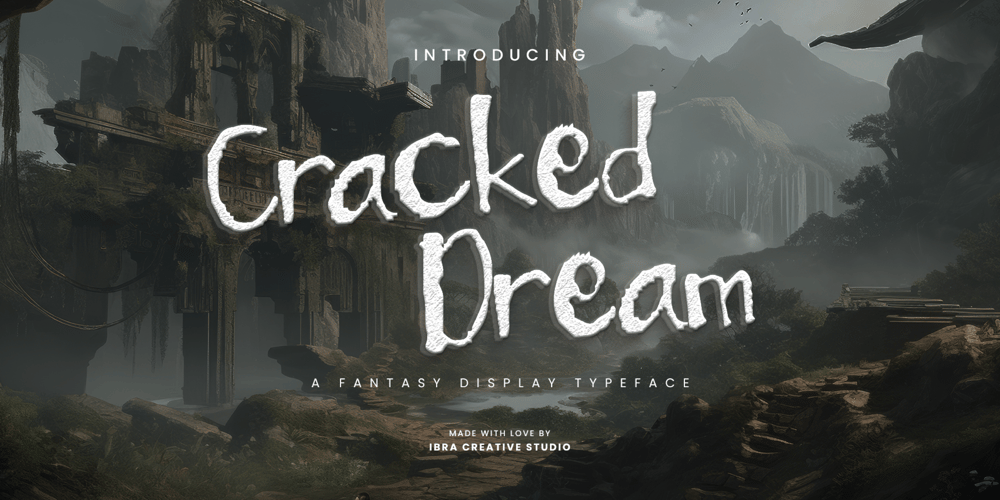
Cracked Dream Font Family was designed by Roisatul Azizah and published by IbraCreative. Cracked Dream contains 1 styles and family package options. Cracked Dream is an enchanting and imaginative fantasy display typeface that transports us to a world of otherworldly wonder. With its intricate and mystic letterforms, Cracked Dream evokes the feeling of stepping into a realm where reality blends with the fantastical. The ornate cracks and intricate details on each letter conjure images of ancient spells and hidden secrets, making it a perfect choice for fantasy book covers, magical-themed designs, and mystical event posters. Cracked Dream’s unique design adds a touch of mystique and allure, inviting viewers to explore the depths of their imagination. Whether used for gaming graphics or ethereal illustrations, this typeface effortlessly weaves a sense of enigma and adventure, truly embodying the essence of a captivating fantasy world.